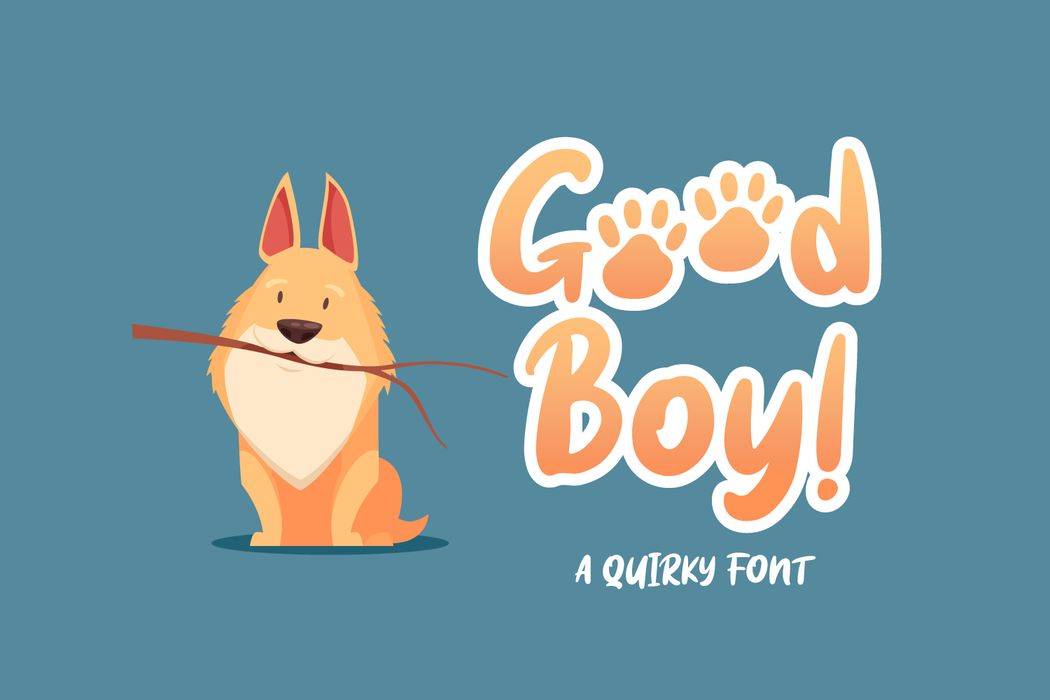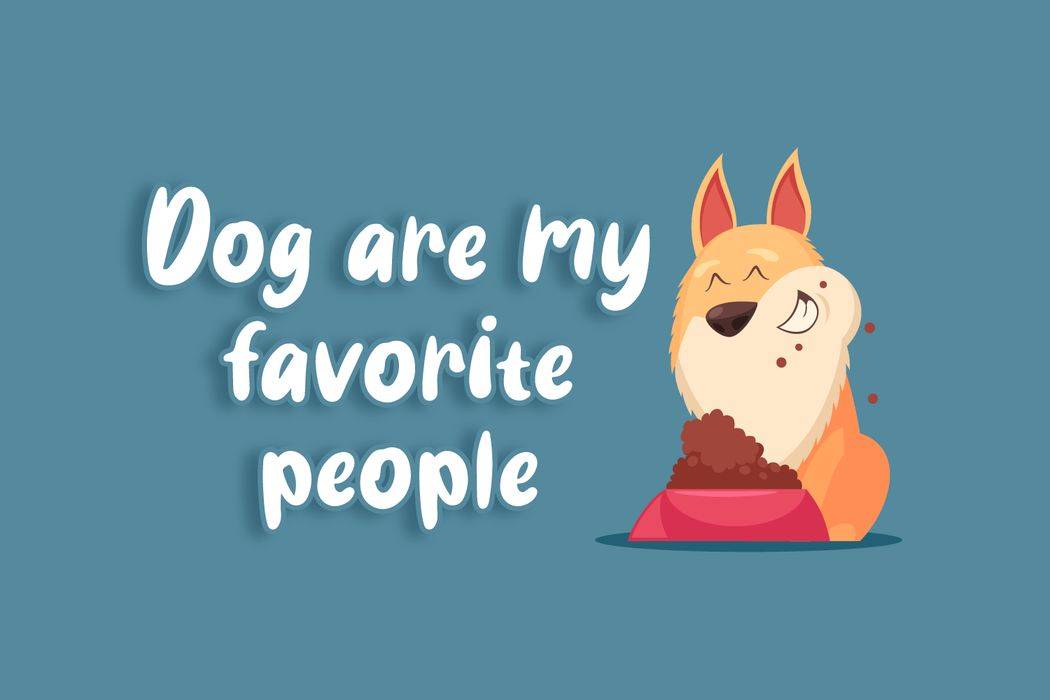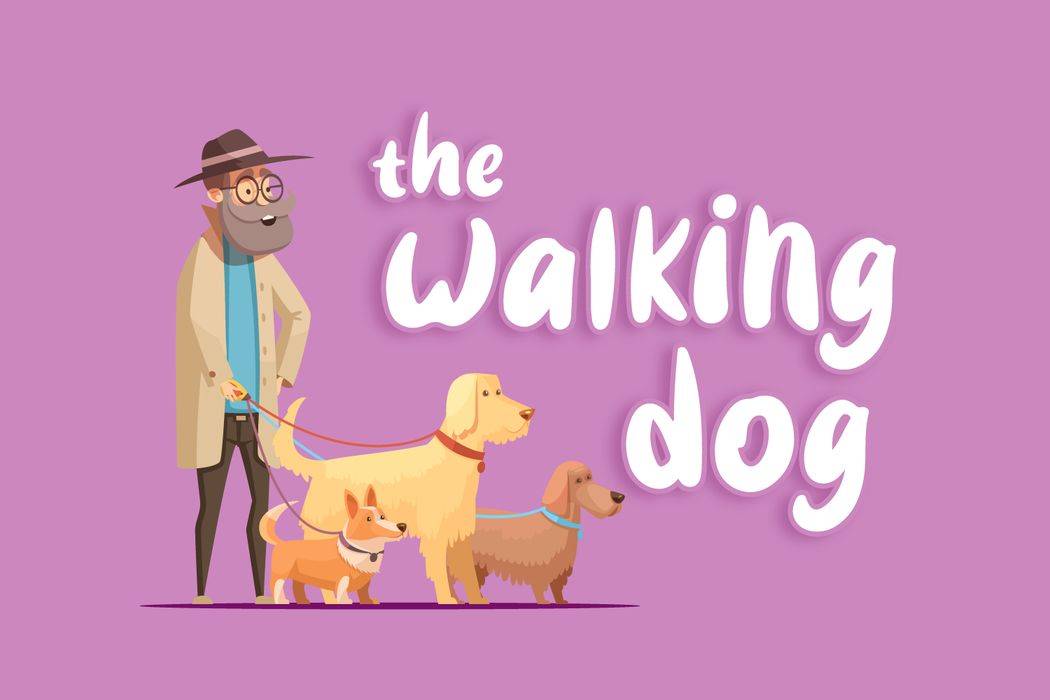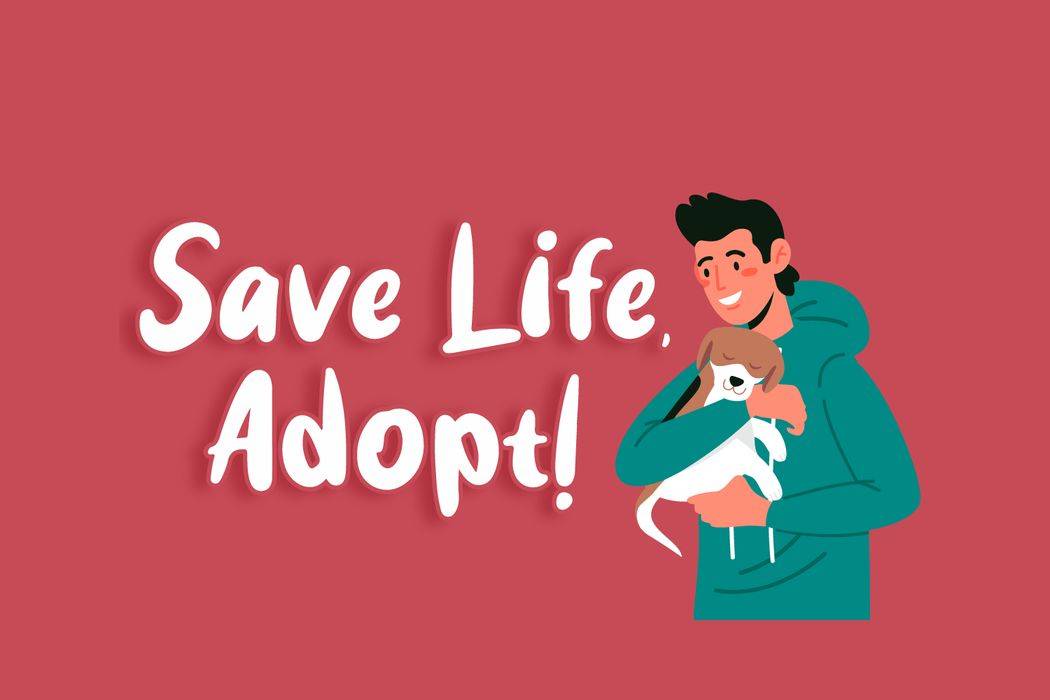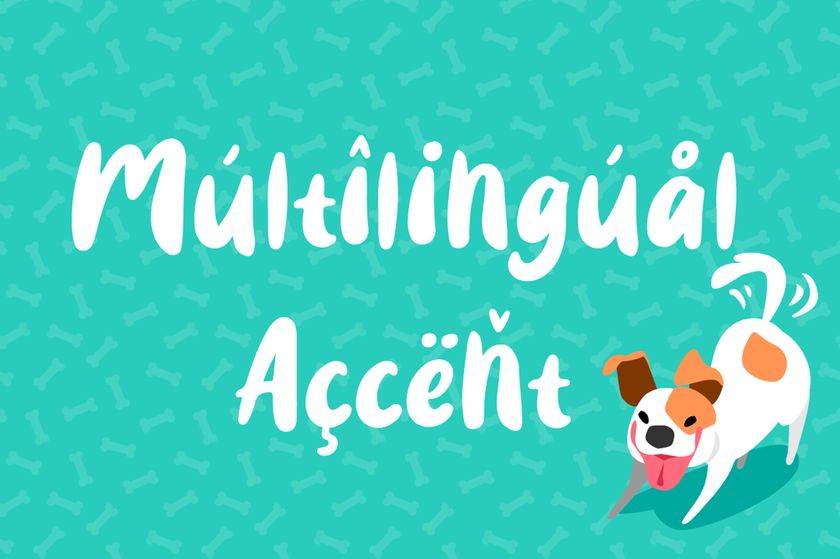
Good Boy is a playful and bold handwritten sans serif font with rounded, lively letterforms that convey warmth and friendliness. Its thick, consistent strokes and casual style make it ideal for fun, informal branding, children’s materials, and creative projects that want to feel approachable and energetic. This font works best in headlines, logos, and packaging where a cheerful, personal touch is needed.
Good Boy Font
About Good Boy Font
| Font family | Good Boy Font |
| Release date | 2019-09-22 |
| Designer | Fadli Ramadhan Iskandar - Attype Studio |